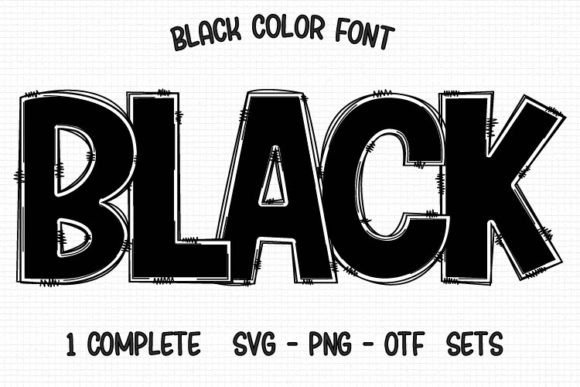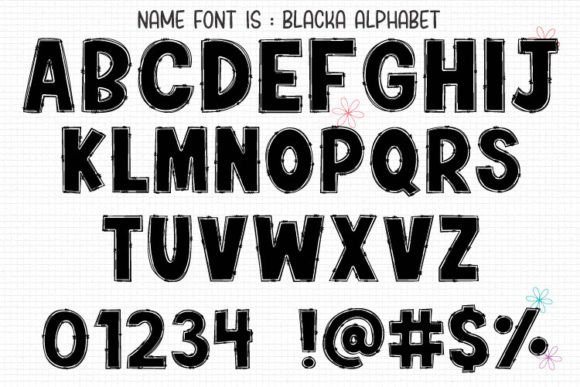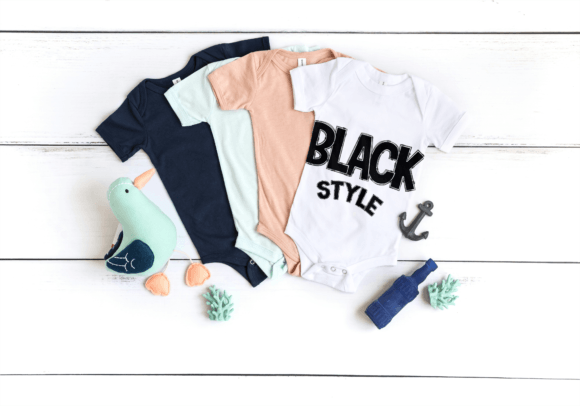
Black Font
Black is a cool, bold and brushed display font. This font is suitable for designs such as t-shirts, sportswear, logos, advertisements, clothing, and more.